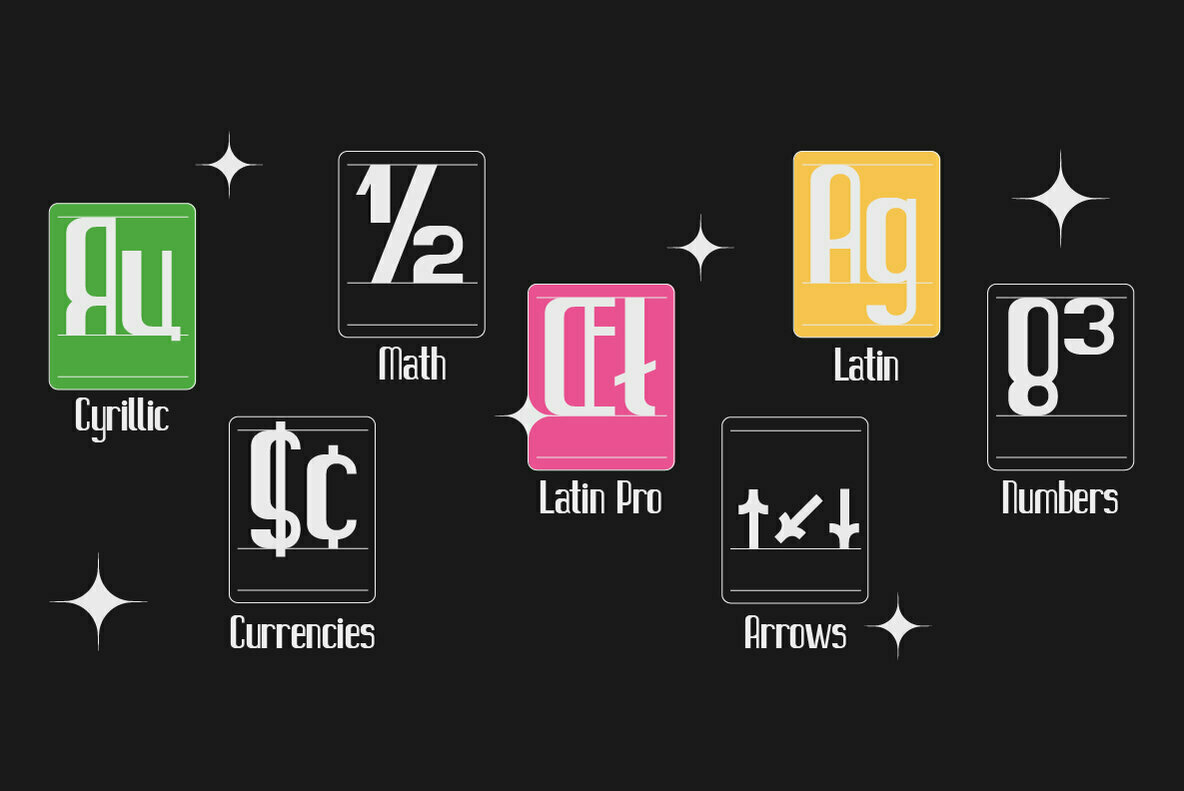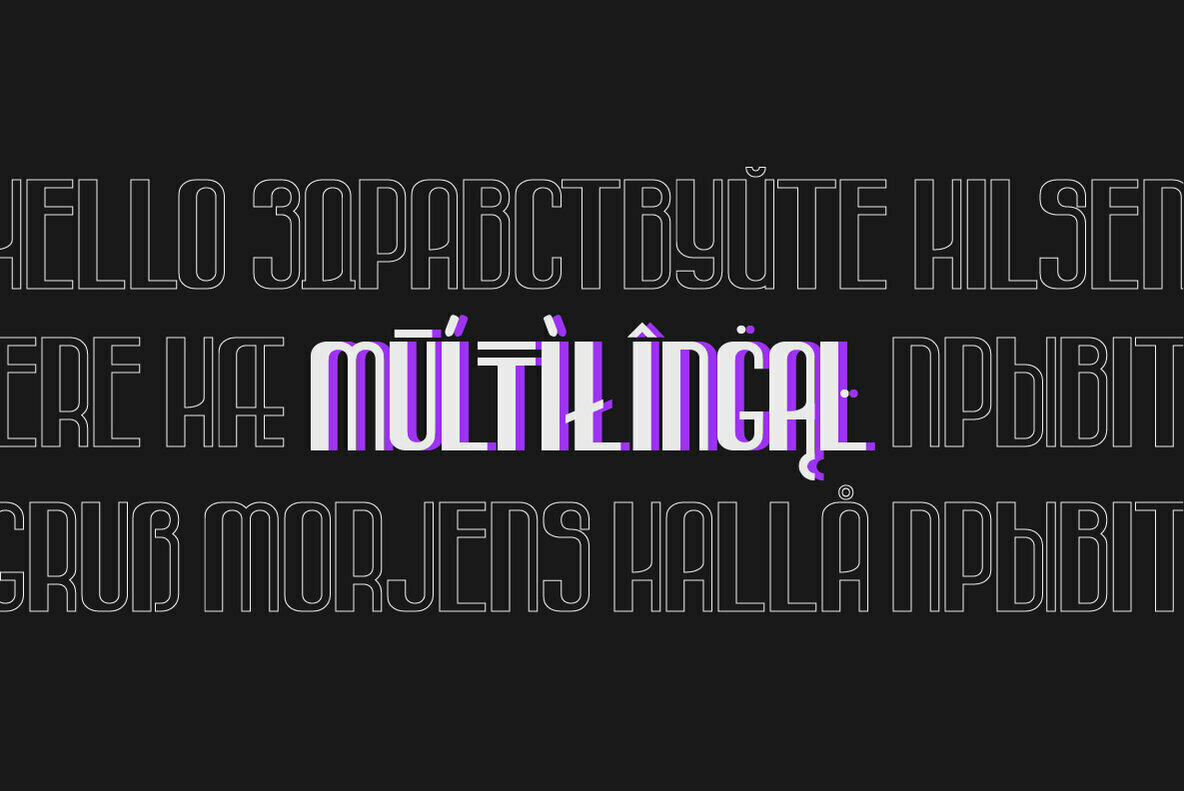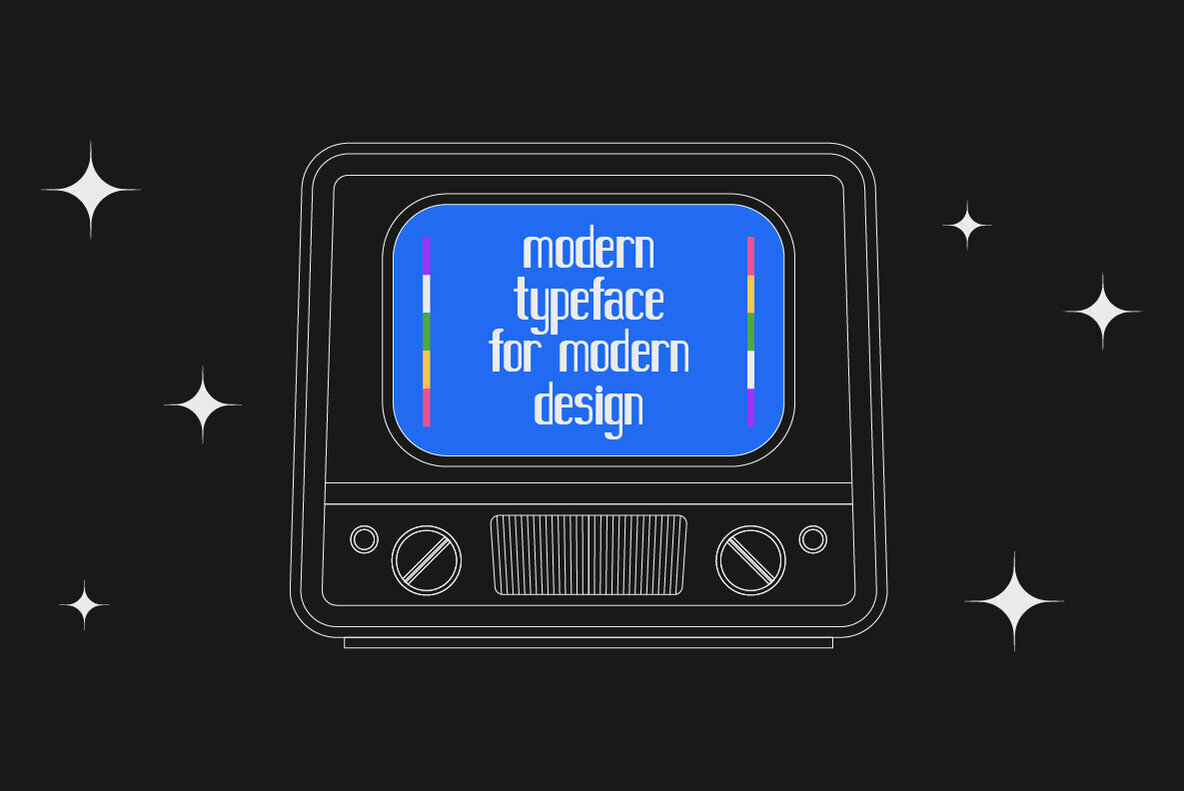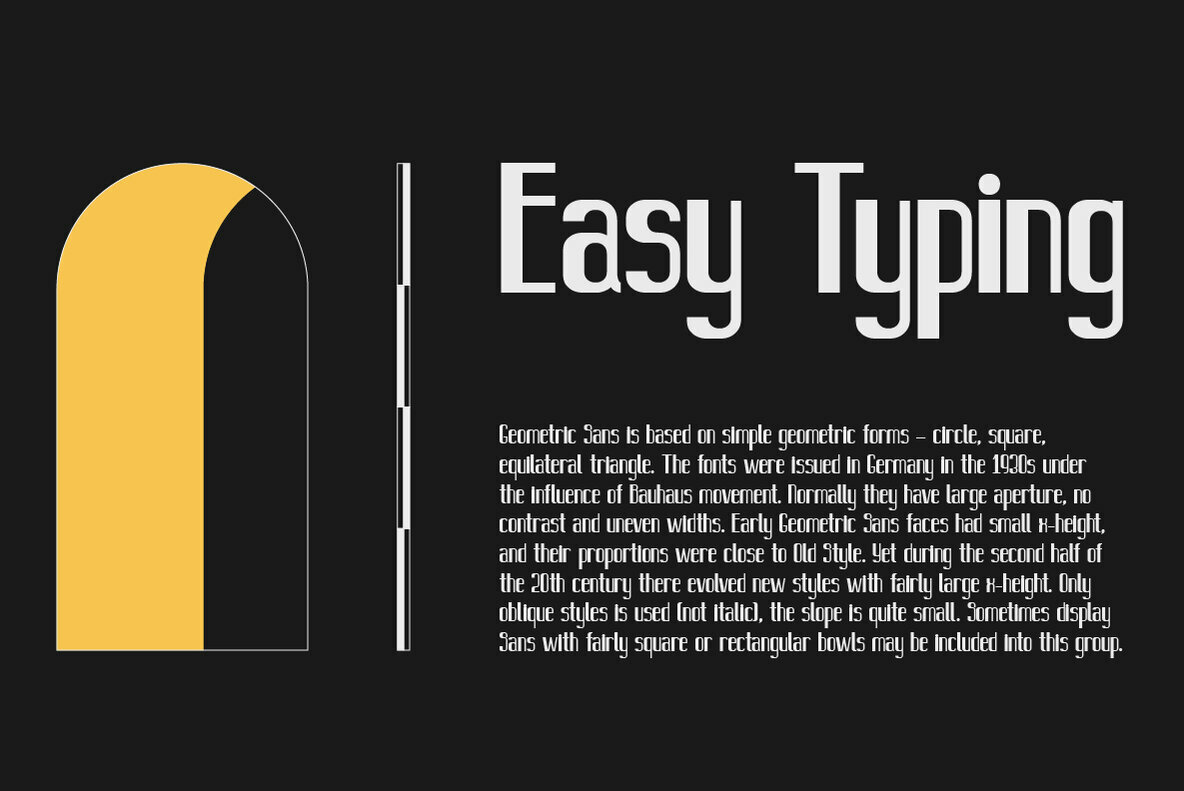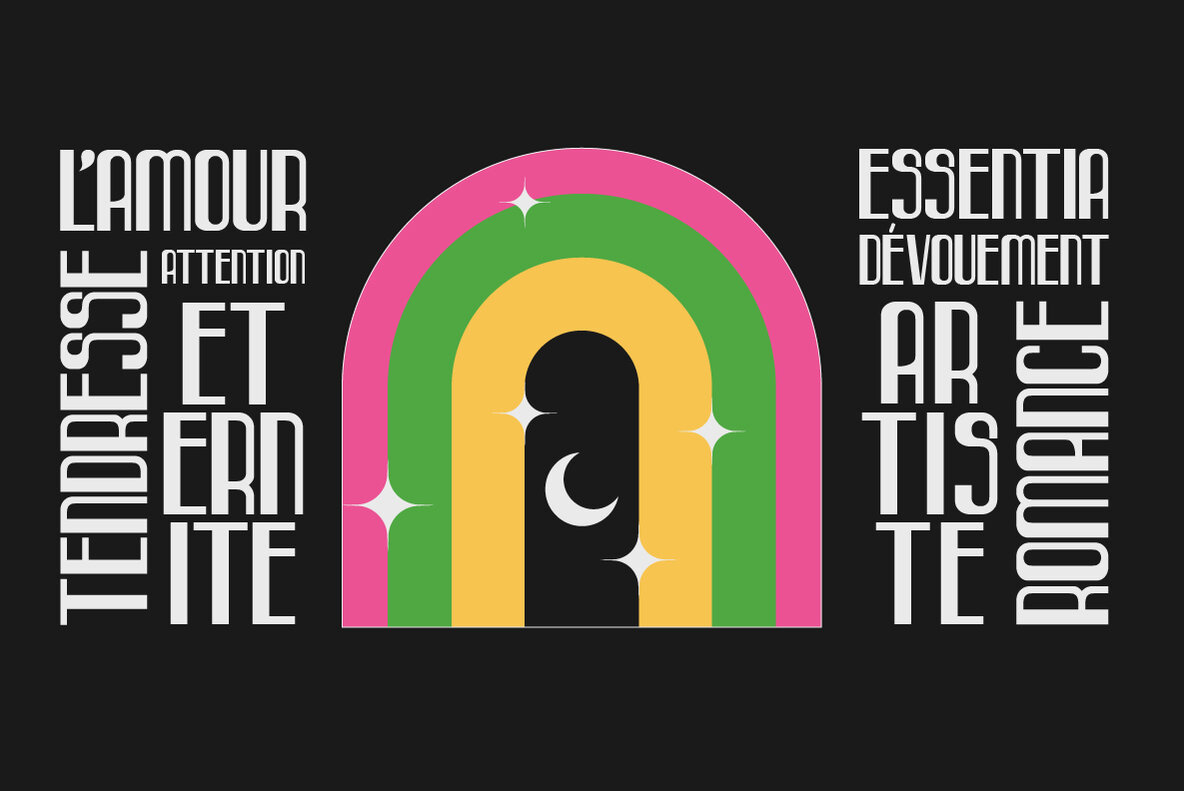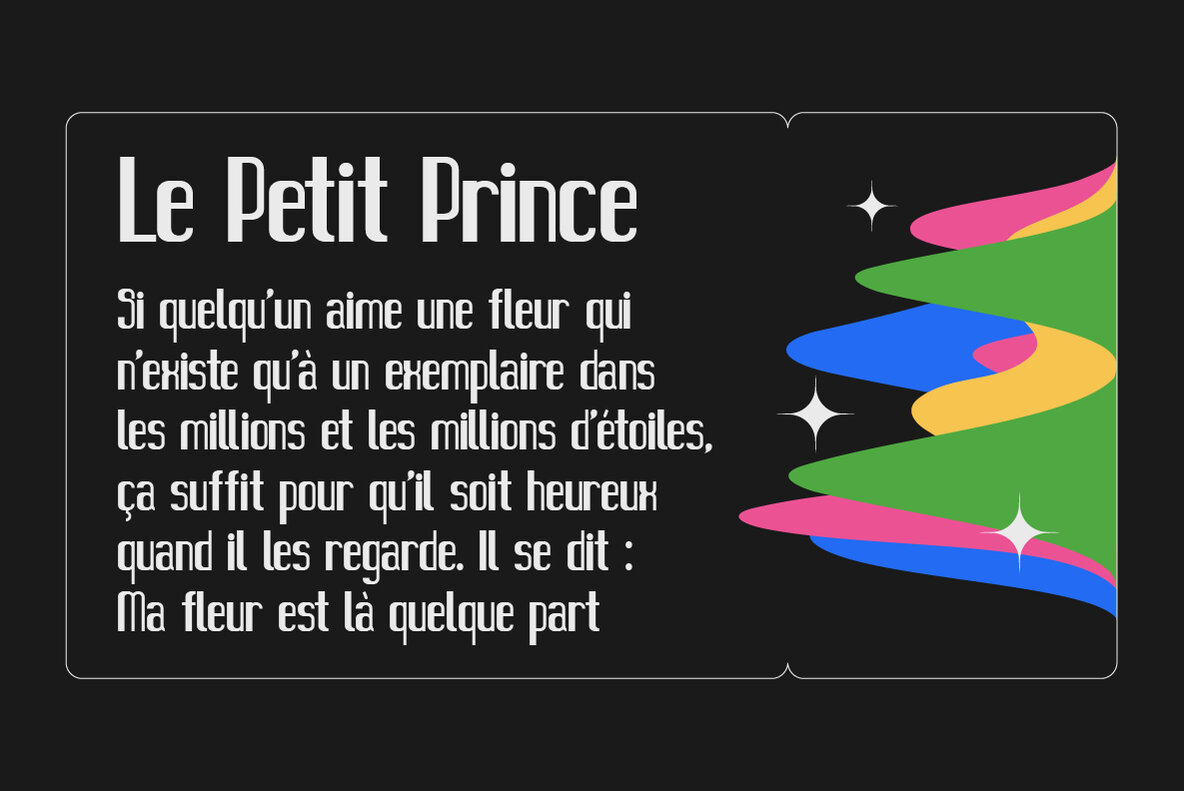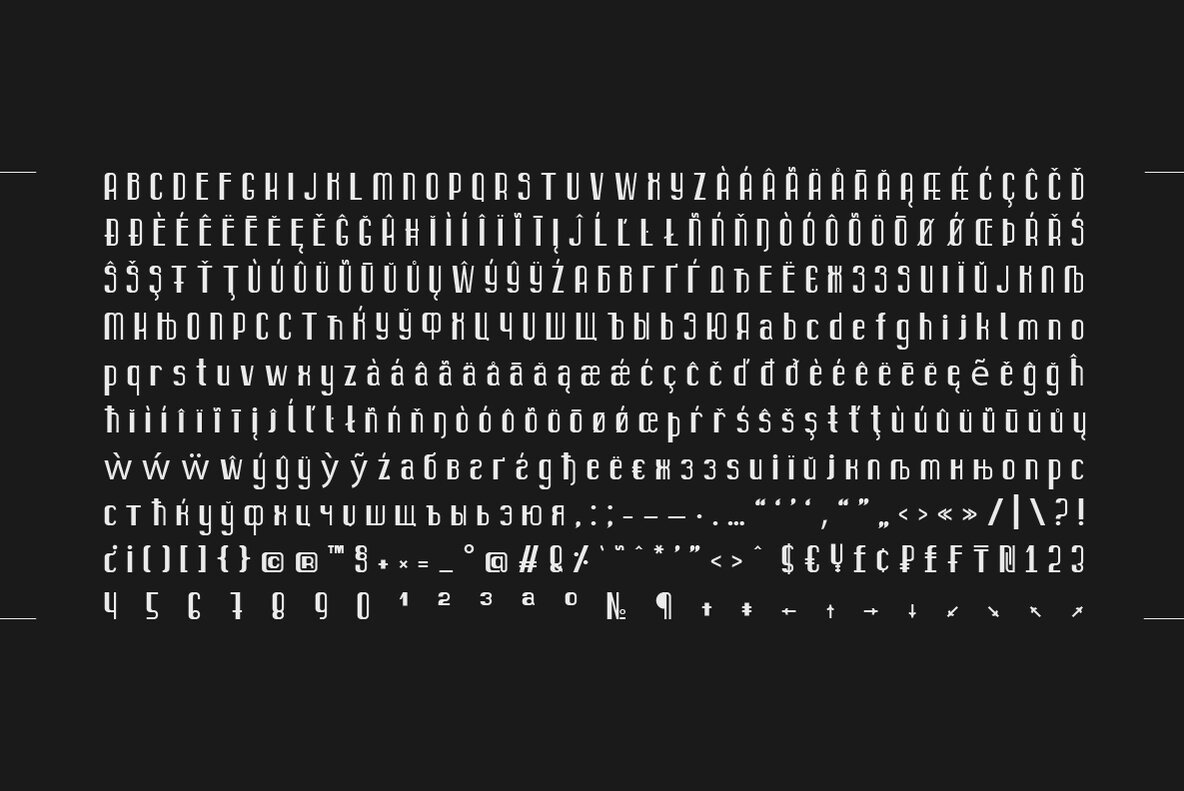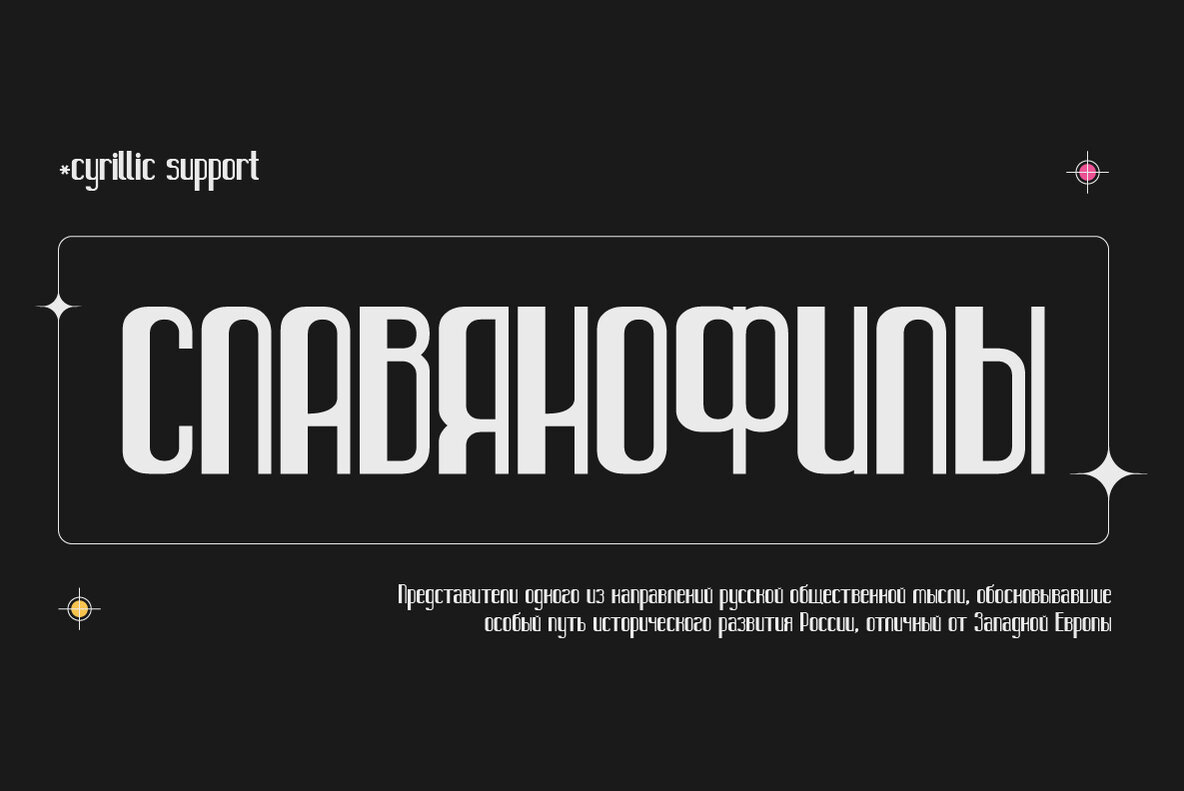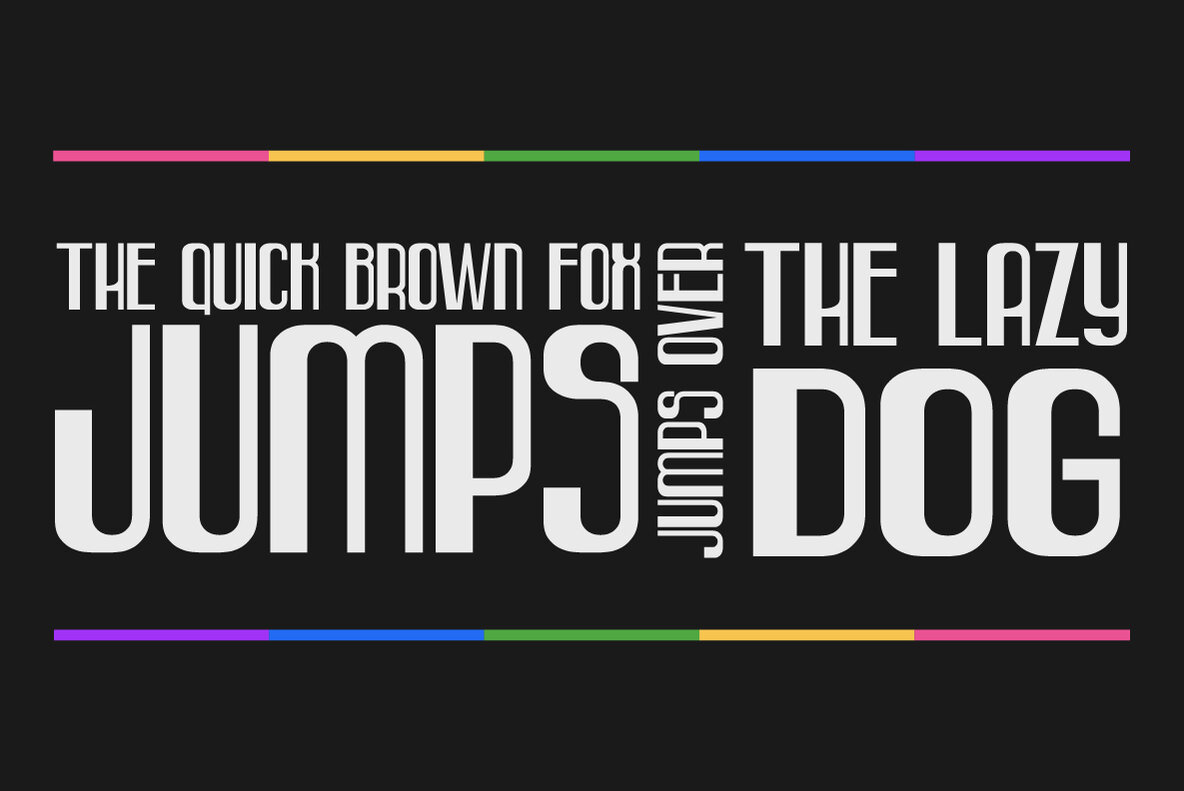
SK Mutka Font
SK Mutka is a geometric sans serif made in the style of Art Deco. Its graceful forms are emphasized by the arched structure typical for the style and spirit of Art Deco. The typeface is suitable both for decorative work and for typing because it includes uppercase and lowercase. Moreover, it supports a wide language range. SK Mutka typeface supports extended Cyrillic, Latin, as well as an extensive character set. SK Mutka is perfect for bold and classic designs, for print and web works.